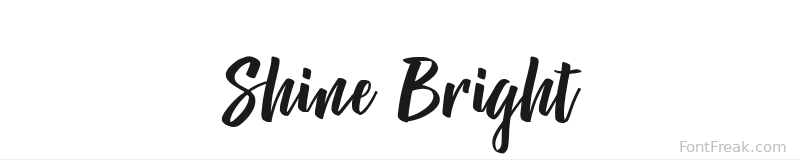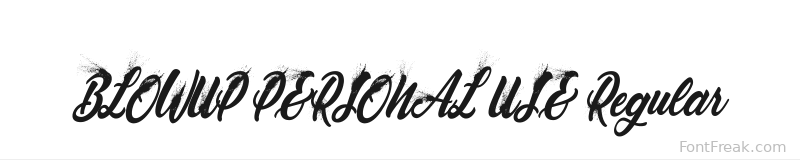
BLOWUP PERSONAL USE Regular
BLOWUP PERSONAL USE Regular is a striking display font designed by Billy Argel Fonts, characterized by its bold, artistic flair. This font falls into the decorative category, making it an excellent choice for projects that seek to capture attention and convey a sense of creativity. The visual characteristics of BLOWUP PERSONAL USE Regular include a playful stroke weight with varying thickness, which adds a dynamic quality to each letterform. The design features an organic, slightly distressed texture that enhances its artistic appeal, giving it a hand-crafted look while maintaining clear legibility.
This font is particularly well-suited for a variety of creative applications. It shines in wedding invitations, where its unique style can evoke a sense of whimsy and personalization. Additionally, BLOWUP PERSONAL USE Regular is perfect for movie posters, lending an air of excitement and intrigue that draws viewers in. Restaurant menus can benefit from its bold presentation, making dish names stand out and creating an inviting atmosphere for diners. Furthermore, content creators can utilize this font for social media graphics, ensuring their posts capture attention and engagement.
Target audiences for this font include graphic designers looking to add a distinctive touch to their work, small business owners aiming to create memorable branding, and content creators who wish to make their visuals pop.
What sets BLOWUP PERSONAL USE Regular apart is its ability to combine artistic flair with versatility. This font makes a statement while remaining functional, making it a go-to choice for designers and creators alike. For those seeking to elevate their projects, the BLOWUP PERSONAL USE Regular font free download offers a chance to incorporate a unique design element that enhances creativity and visual impact.